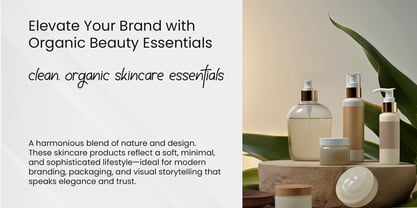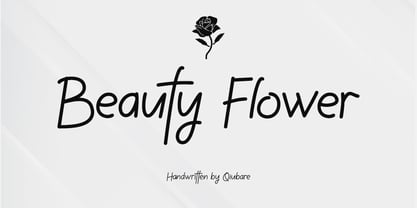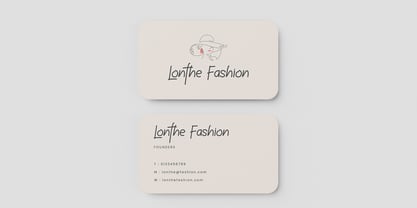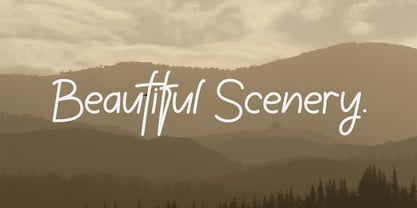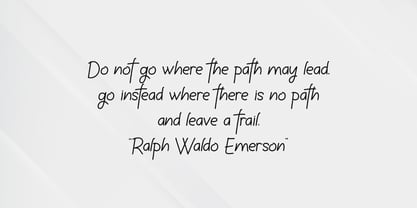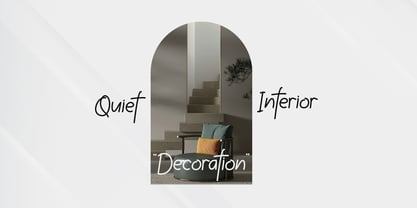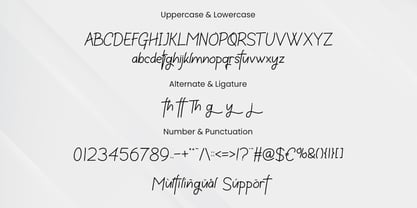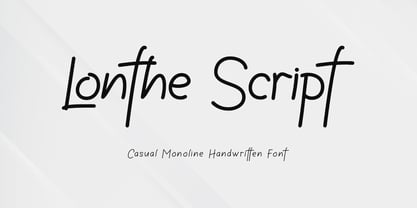
Lonthe
Die Schriftfamilie Lonthe wurde von Michael Everson entworfen und von Qiubare Studio veröffentlicht. Lonthe enthält 1 Stile. Mehr über diese Familie
Lonthe is a clean and elegant monoline script font that infuses a natural handwritten feel into contemporary branding. With its smooth strokes and balanced flow, this typeface achieves a perfect blend of simplicity and sophistication. Carefully crafted for designers seeking a minimal yet expressive aesthetic, Lonthe shines across a diverse array of creative projects—from branding and logo design to social media, packaging, and editorial layouts. Its casual handwritten style adds a warm and personal touch while maintaining a professional and premium look. Whether you're developing a beauty brand, lifestyle product, or modern identity, Lonthe adapts effortlessly.✨ Perfect for: *Logo & branding* *Beauty & skincare products* *Fashion & lifestyle designs* *Social media content* *Packaging & labels* *Quotes & editorial design*✨ Features: *Uppercase & lowercase* *Smooth monoline strokes* *Stylish ligatures & alternates* *Numbers & punctuation* *Multilingual support* Designed to feel natural, stylish, and timeless—Lonthe is your ideal font for crafting elegant and modern visual identities.